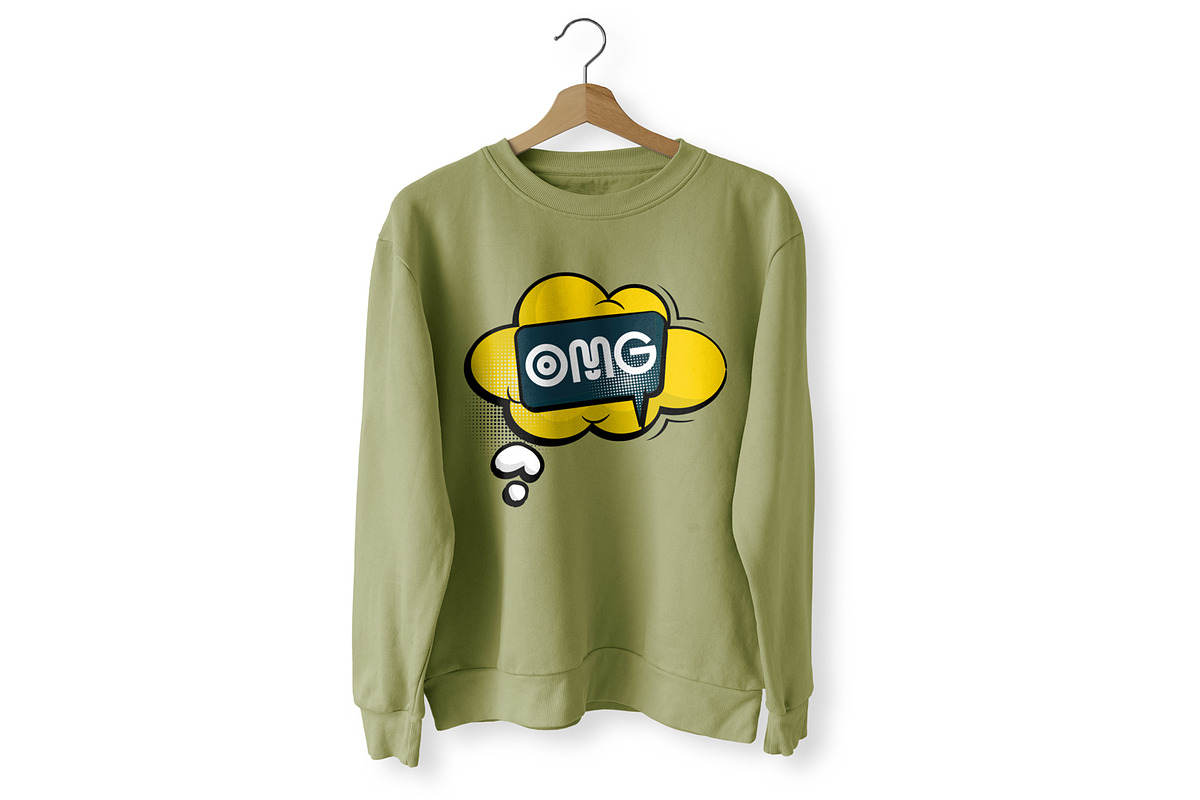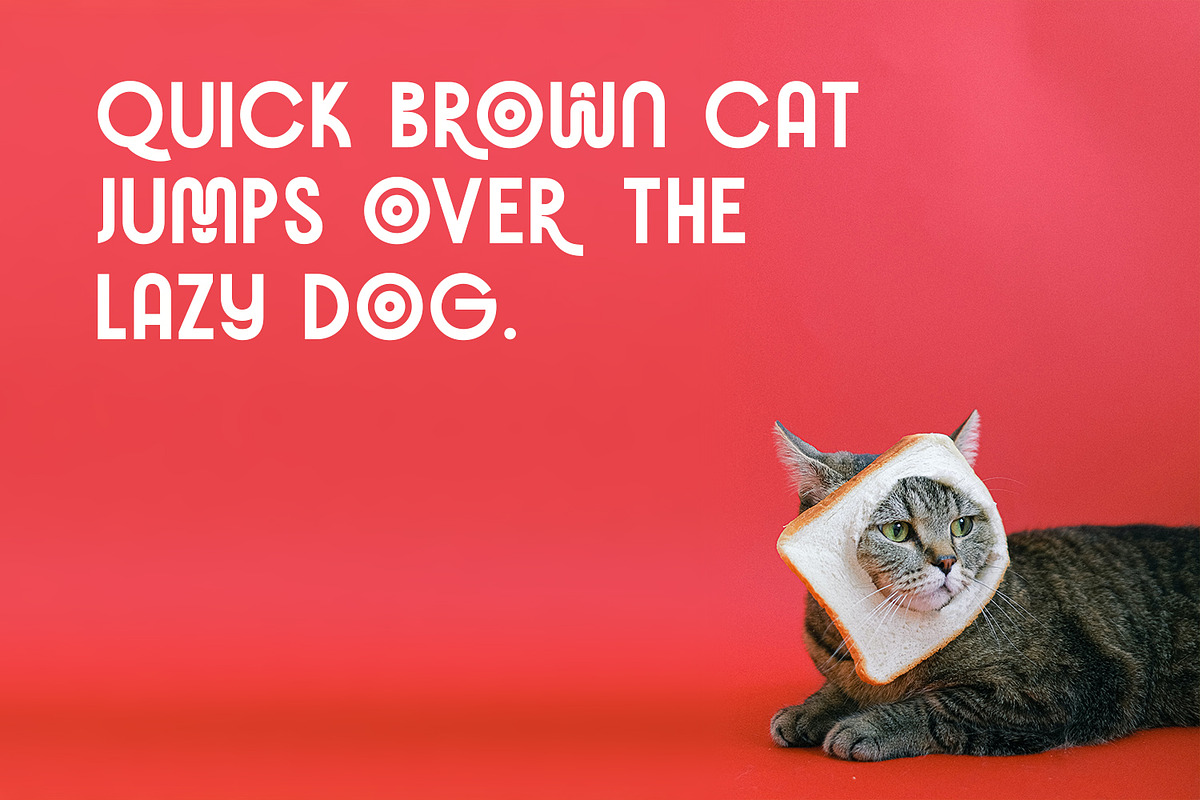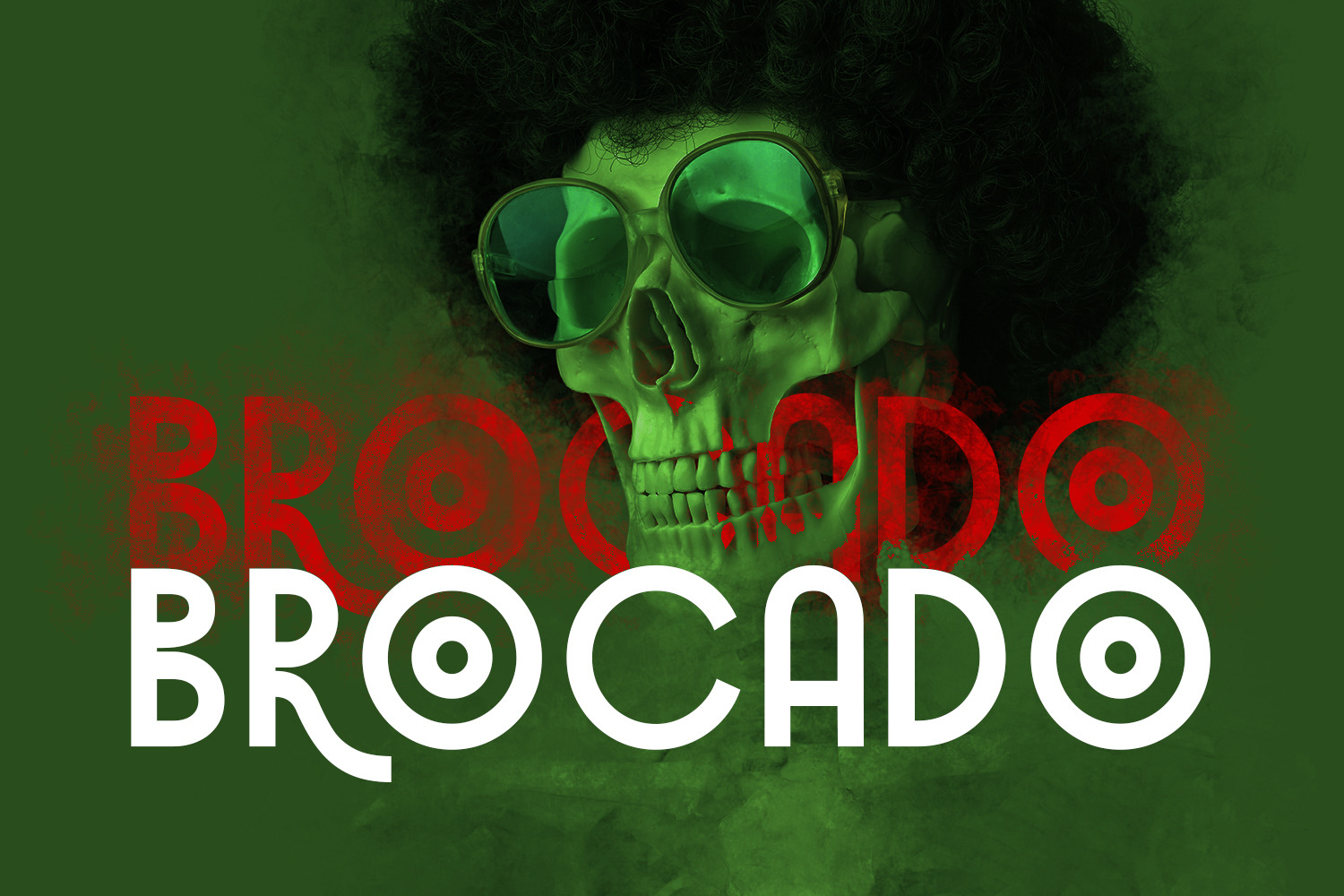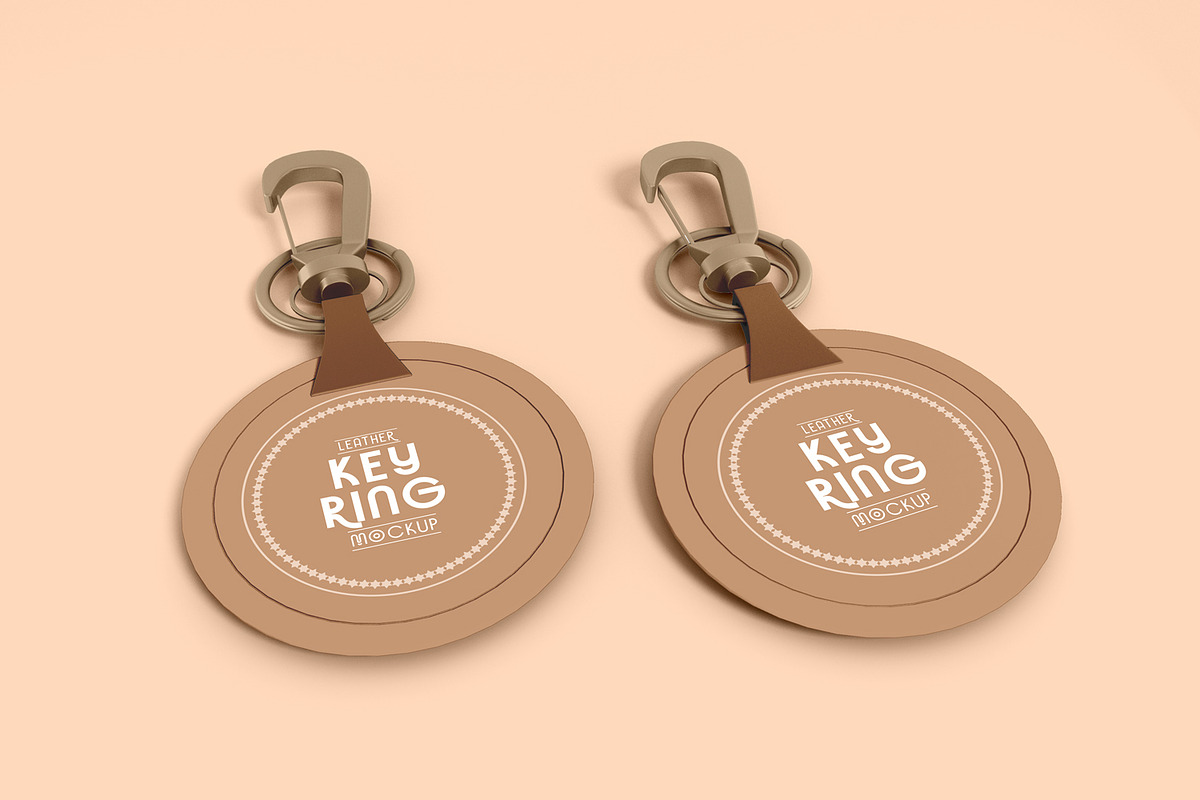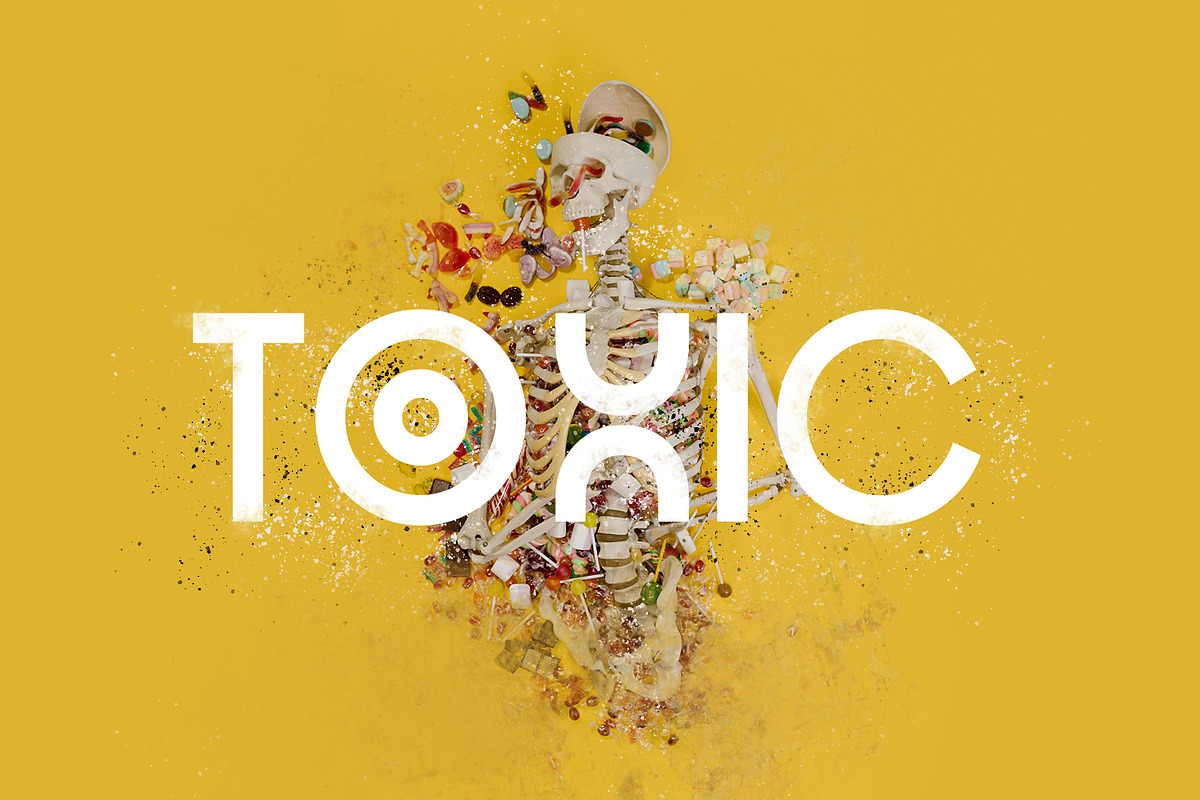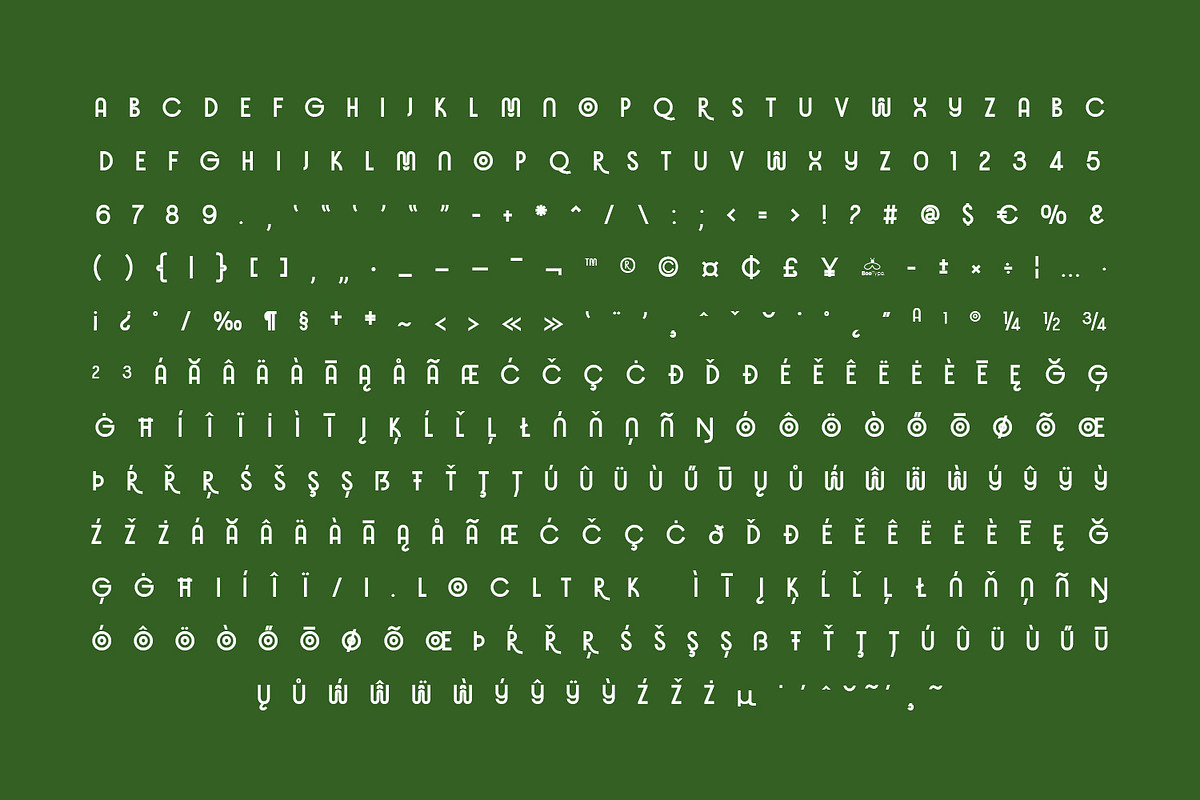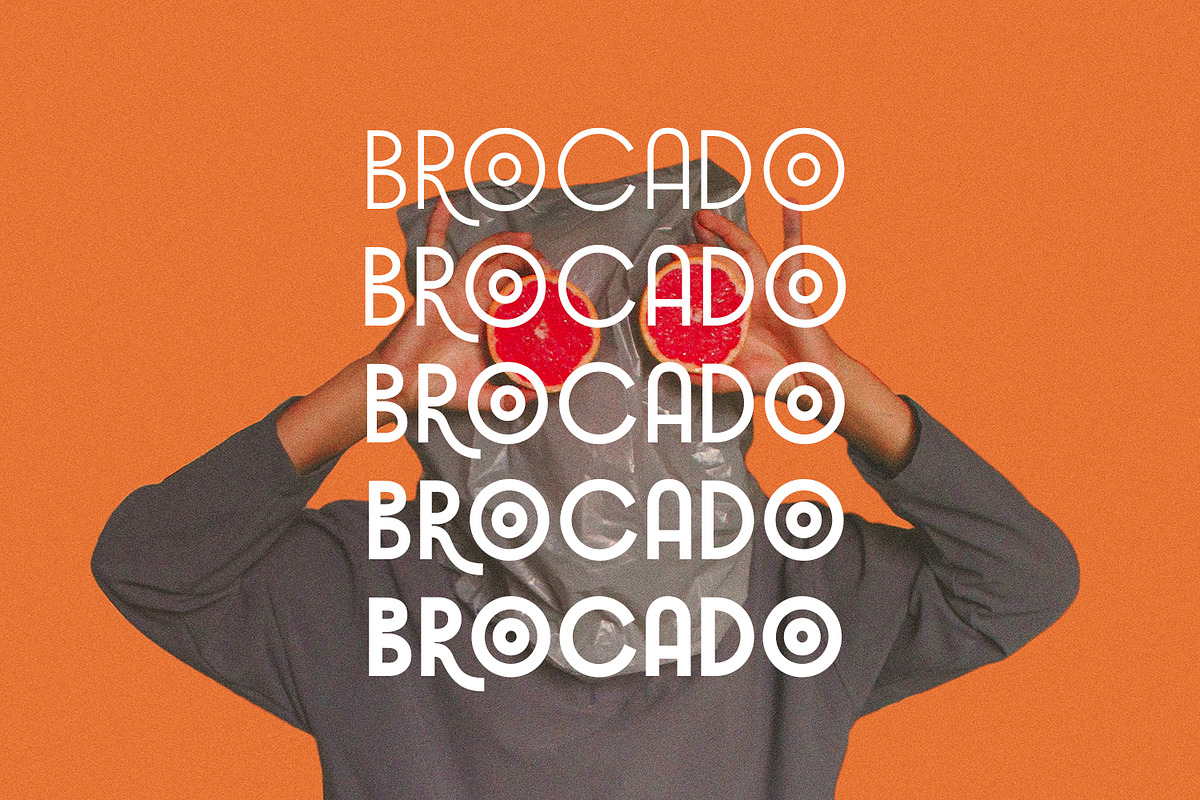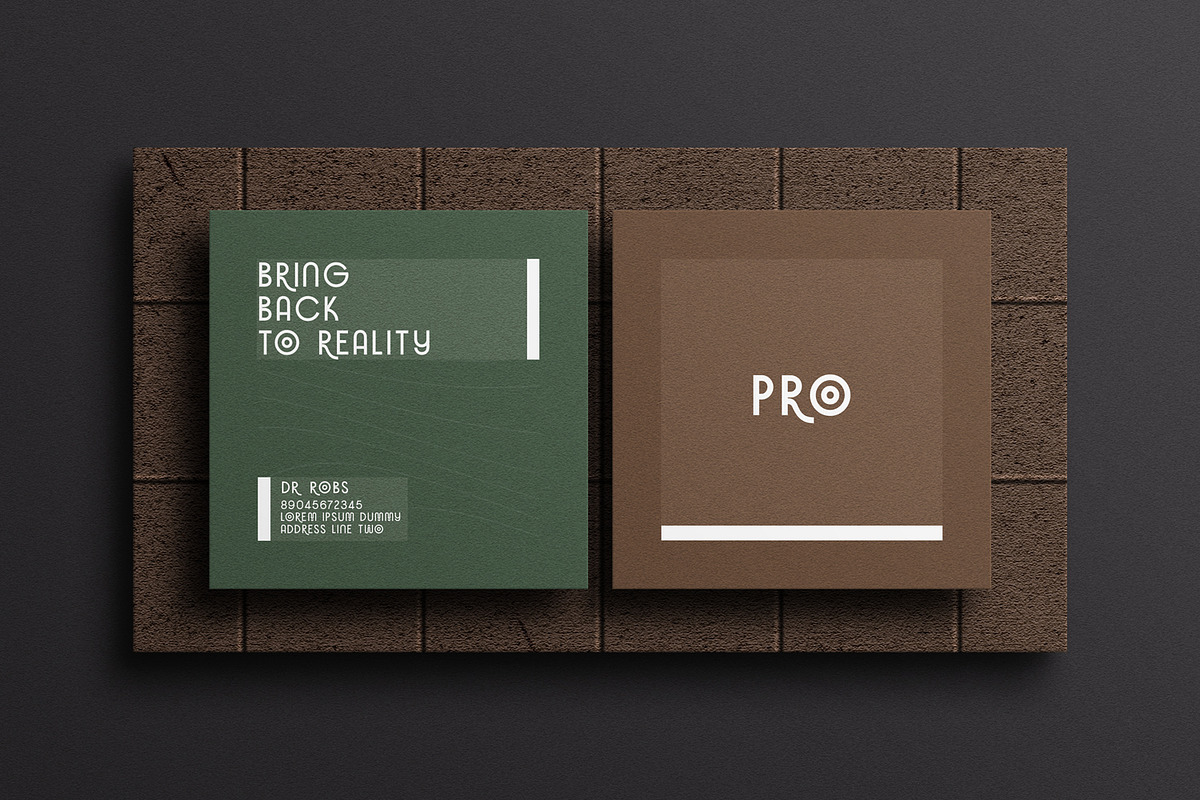
Brocado Typeface
Brocado is a unique and modern sans serif font, perfect for headlines, big text, Posters, logotypes & display usage. The Typeface will add a neat and sleek accent to each of your beautiful crafty ideas! It has a dependable and uncompromising style, with the controlled letterforms and modern touches, experienced through sophisticated touches and controlled letterforms. There’s a good mix of strong lines and smooth curves. Each font in the family can be used independently, and each is lively and authoritative in its own right.
The various weights allow you to experiment with a wide range of applications, while the outlined typefaces offer any project a truly modern vibe.